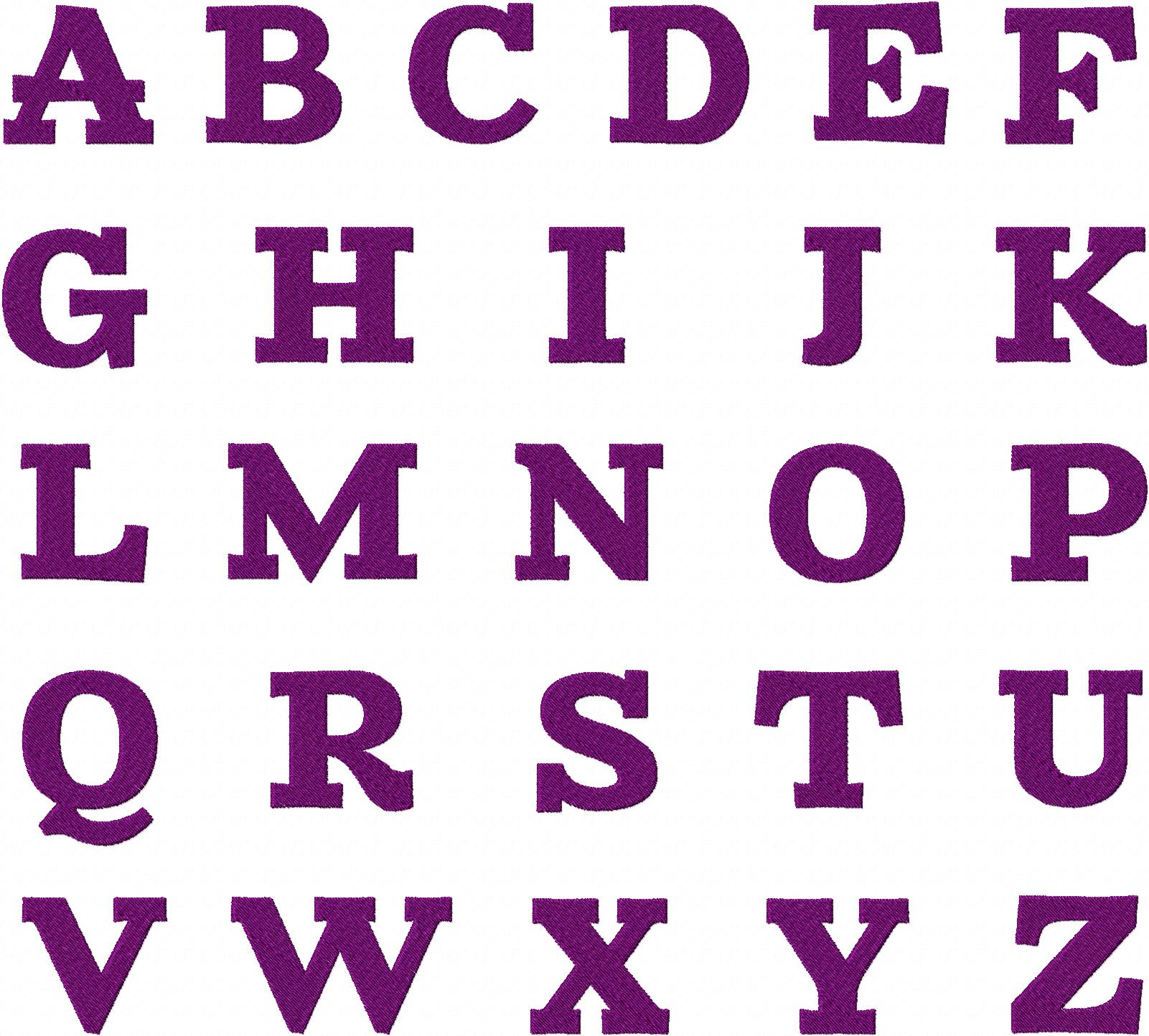
The Zantroke Machine Embroidery Font Set includes Upper and Lowercase Letters, Numbers and Bonus Punctuation in all of the following sizes: 1" 2" & 3"